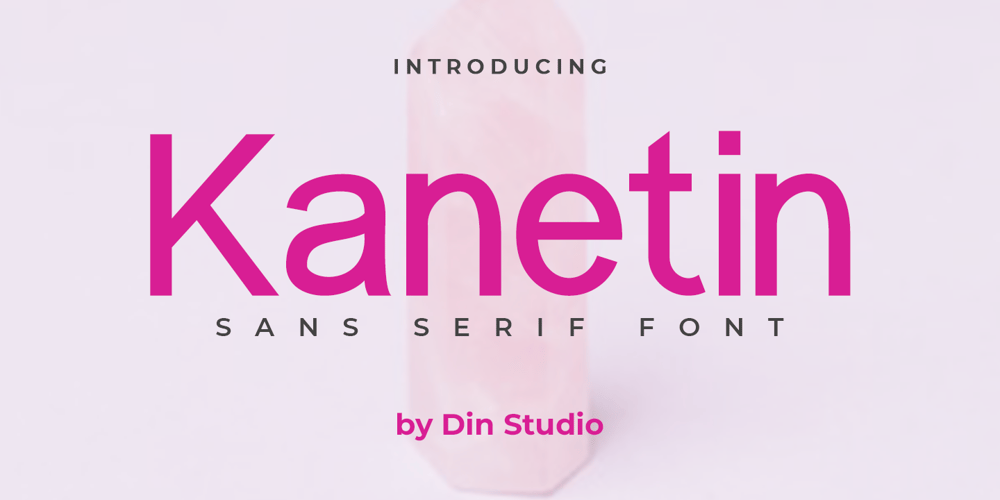
Kanetin Font Family was designed by Donis Miftahudin and published by Din Studio. Kanetin contains 1 styles and family package options. Kanetin is a elegant sans serif font. Made for any professional project branding. It is perfect for printing, branding and quotes. Every letter has a unique and beautiful touch.Features: PUA Encoded Multilingual Support Numerals and Punctuation Thank you for downloading premium fonts from Din Studio